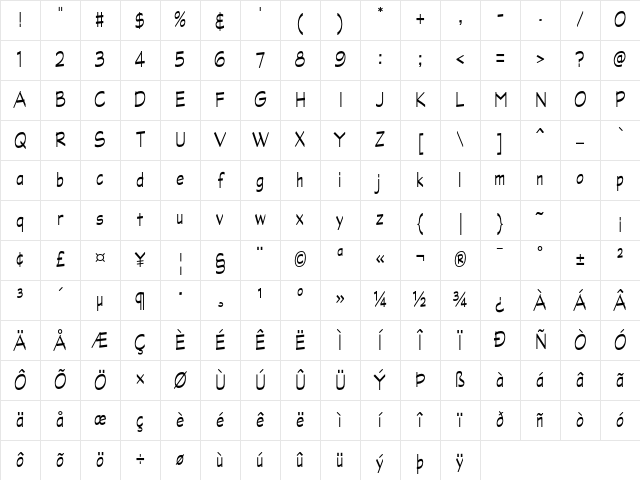
Graphite AT Narrow Regular is a composed and adaptable typeface that performs quietly and consistently across a wide range of design contexts. Its narrow stance lets it pack a punch even in space-constrained designs.